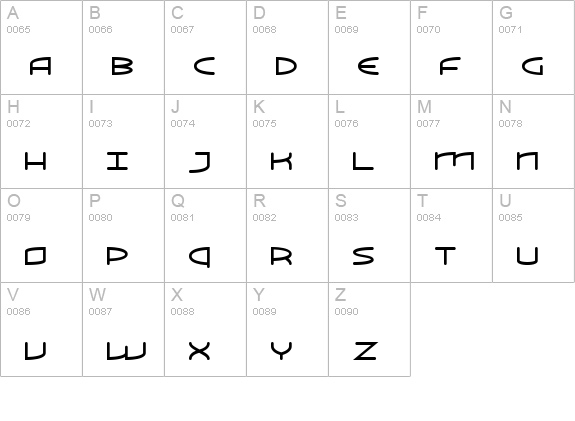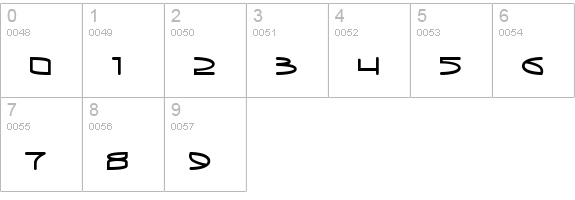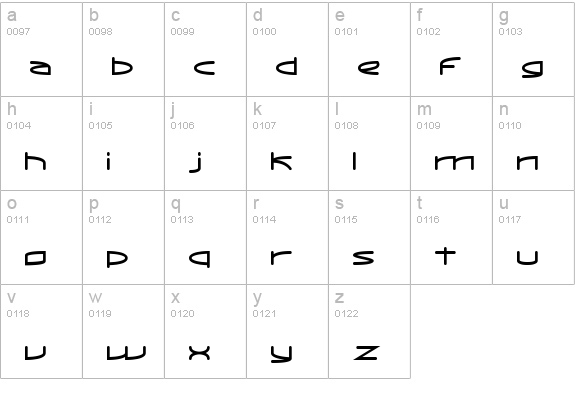
Introducing ReadOut, a stunning and modern font that will bring a touch of elegance to any design project. With its clean lines and sleek curves, ReadOut is the perfect choice for those seeking a font that effortlessly combines sophistication and readability. This versatile typeface is ideal for a wide range of applications, from branding and logo design to editorial layouts and website headers. Its crisp and clear letterforms ensure that your message will be communicated with utmost clarity, while its unique character adds an element of personality and charm. One of the most appealing features of ReadOut is that it is freely available for download at FontsMarket.com. This means that you can easily access this exceptional font, without having to worry about any financial constraints. Whether you are a professional designer or a creative enthusiast, ReadOut offers you the opportunity to elevate your projects to new heights, without breaking the bank. So why wait? Embrace the elegance and versatility of ReadOut and let your creativity soar. Download this remarkable font today at FontsMarket.com and unlock a world of possibilities for your design endeavors.